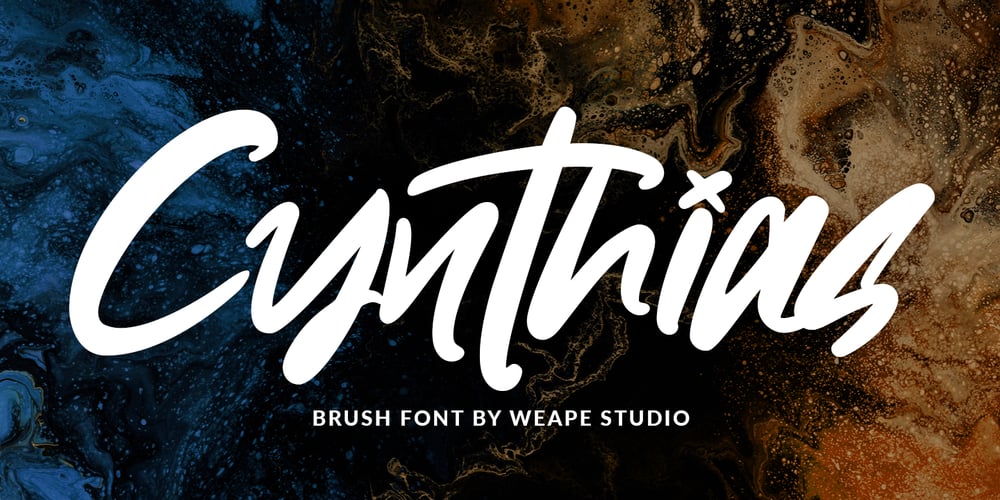
Cynthias Font Family was designed by Wahyu Andi Prasetiyo and published by Weape. Cynthias contains 1 styles and family package options. Introducing Cynthias Brush Font, with a quick hand stroke. You can use and enjoy Cynthias for promotional material and anything. This font is perfect for signature logos, handwritten quotes, product packaging, fashion magazines, photography, branding projects, posters, social media posts, book covers, flyers, and advertising. You can create all this easily and make it as if you wrote it yourself. All fonts containing upper & lowercase characters, numerals, ligatures and a large range of punctuation. More information about how to access alternate glyphs, you can see on this link ( http://goo.gl/ZT7PqK ) If you have any questions at all, feel free to send me a private message, I’m always more than happy to help you along. Happy creating. Enjoy!